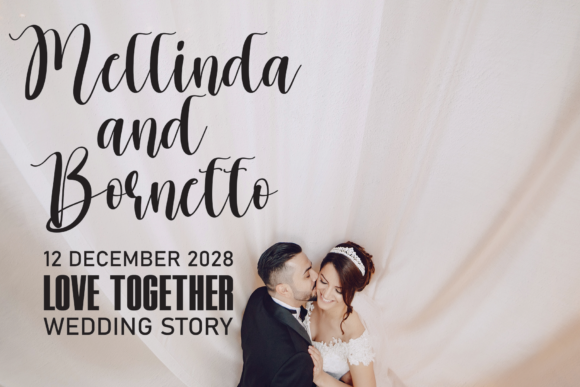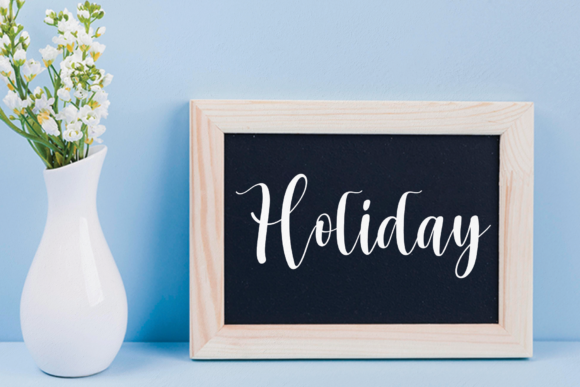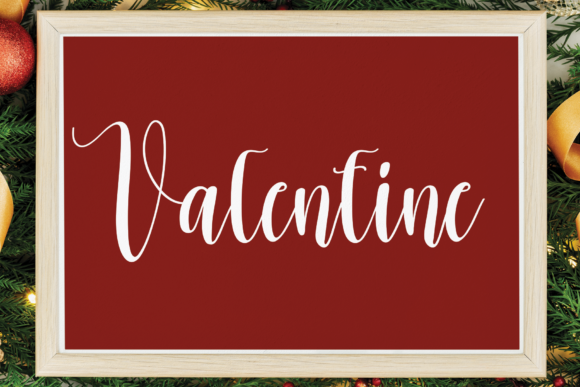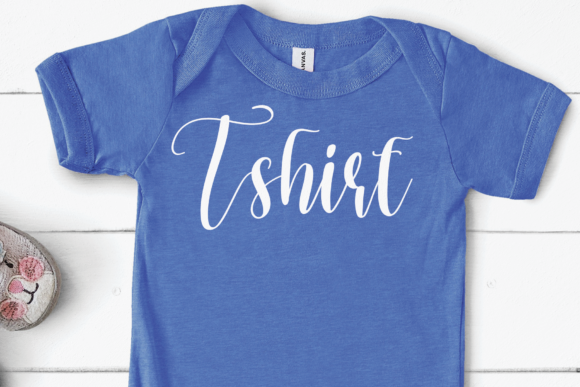
Introducing Darling Font: The Perfect Script Font for Your Creative Projects
Are you a designer or crafter looking for a beautiful script font to elevate your creative projects? Look no further than Darling Font! This gorgeous script font features stunning letters that are perfect for a variety of applications, from wall displays and wedding invitations to social media post logos, advertisements, product packaging, and more.
What Makes Darling Font So Special?
Darling Font is a unique and elegant script font that is sure to capture the attention of your audience. Its beautiful, flowing letters are designed to add a touch of sophistication and glamour to any project. Whether you’re creating a wedding invitation, a social media post, or a product label, Darling Font is the perfect choice.
Key Features of Darling Font
- Beautiful Script Letters: Darling Font features stunning script letters that are perfect for adding a touch of elegance to your projects.
- Versatile: This font is perfect for a variety of applications, including wall displays, wedding invitations, social media post logos, advertisements, product packaging, and more.
- Elegant and Sophisticated: Darling Font is designed to add a touch of sophistication and glamour to any project.
Uses for Darling Font
Darling Font is a versatile font that can be used for a variety of creative projects. Here are some ideas to get you started:
- Wedding Invitations: Darling Font is perfect for creating beautiful and elegant wedding invitations that will set the tone for your special day.
- Social Media Post Logos: Use Darling Font to create stunning social media post logos that will help you stand out from the crowd.
- Wall Displays: Create beautiful wall displays using Darling Font to add a touch of elegance to any room.
- Product Packaging: Darling Font is perfect for creating eye-catching product packaging that will help your products stand out on store shelves.
- Advertisements: Use Darling Font to create stunning advertisements that will grab the attention of your target audience.
Tips for Using Darling Font
Here are some tips for using Darling Font in your creative projects:
- Use it Sparingly: Darling Font is a bold and elegant font, so use it sparingly to add emphasis to your projects.
- Pair it with Other Fonts: Darling Font pairs well with other fonts, so experiment with different combinations to find the perfect look for your project.
- Experiment with Colors: Darling Font looks great in a variety of colors, so experiment with different colors to find the perfect look for your project.